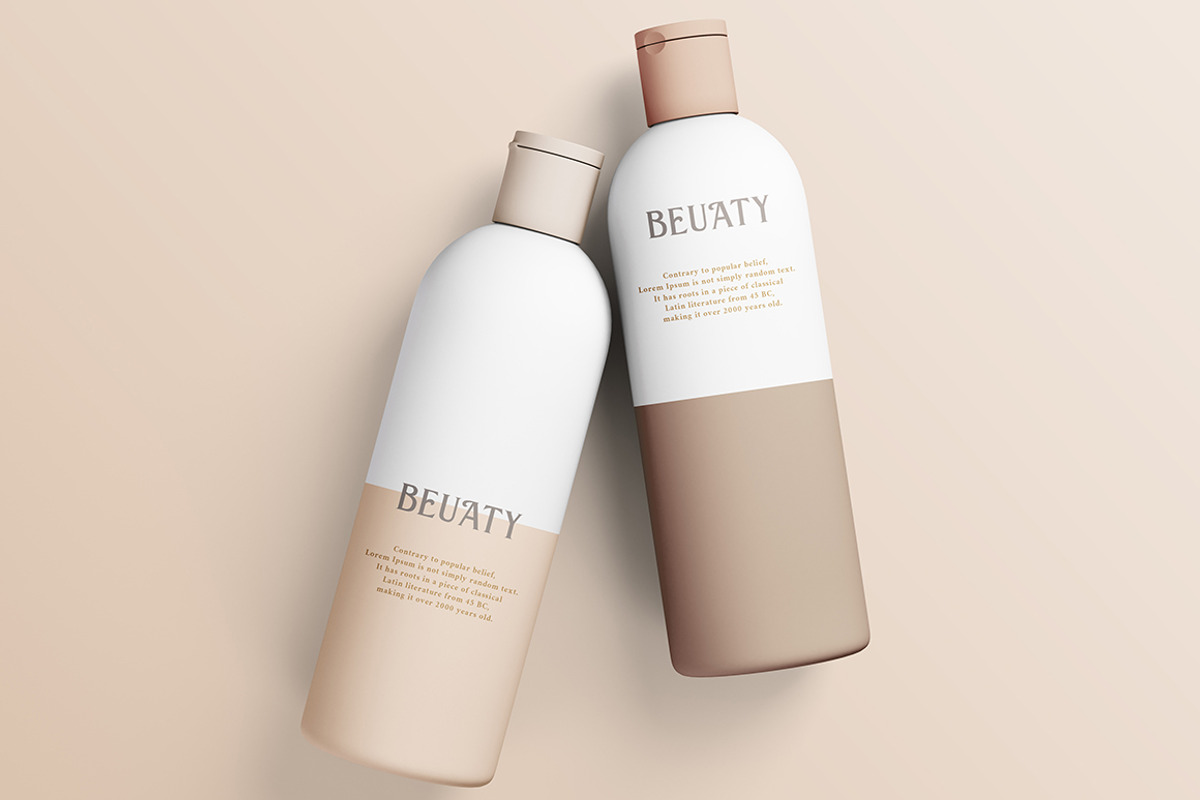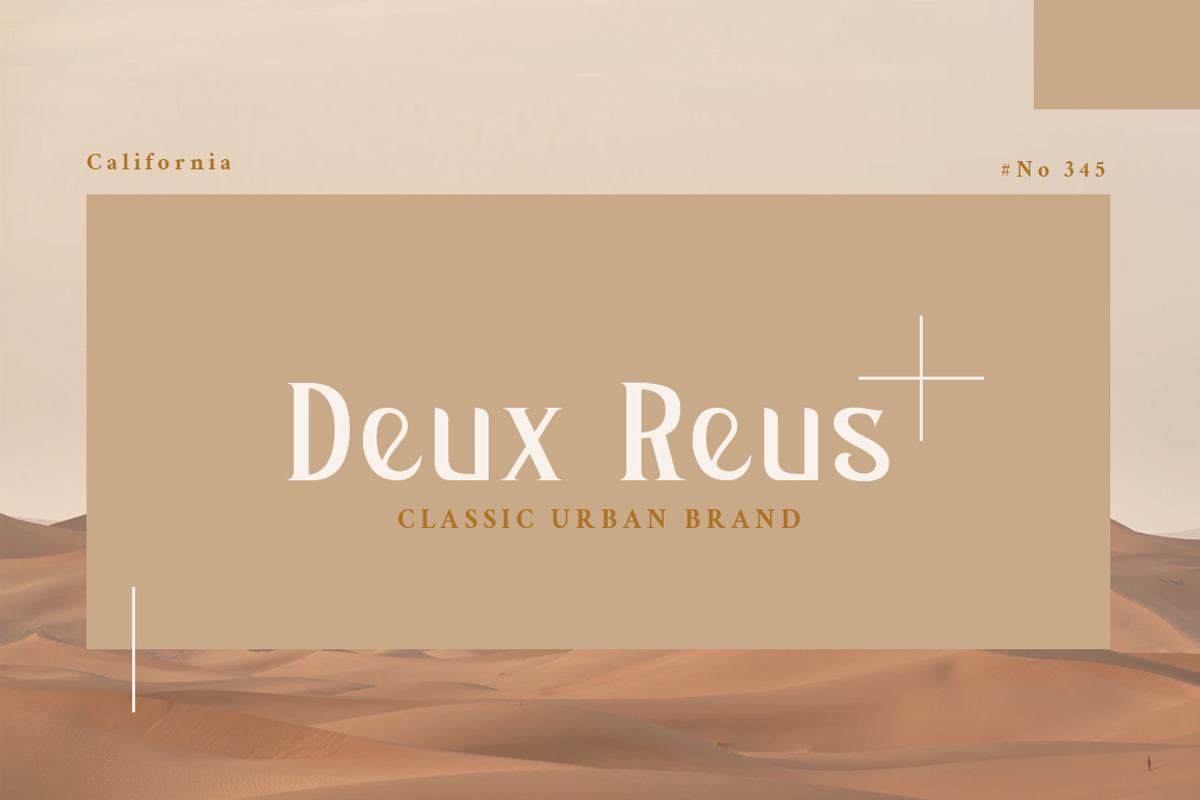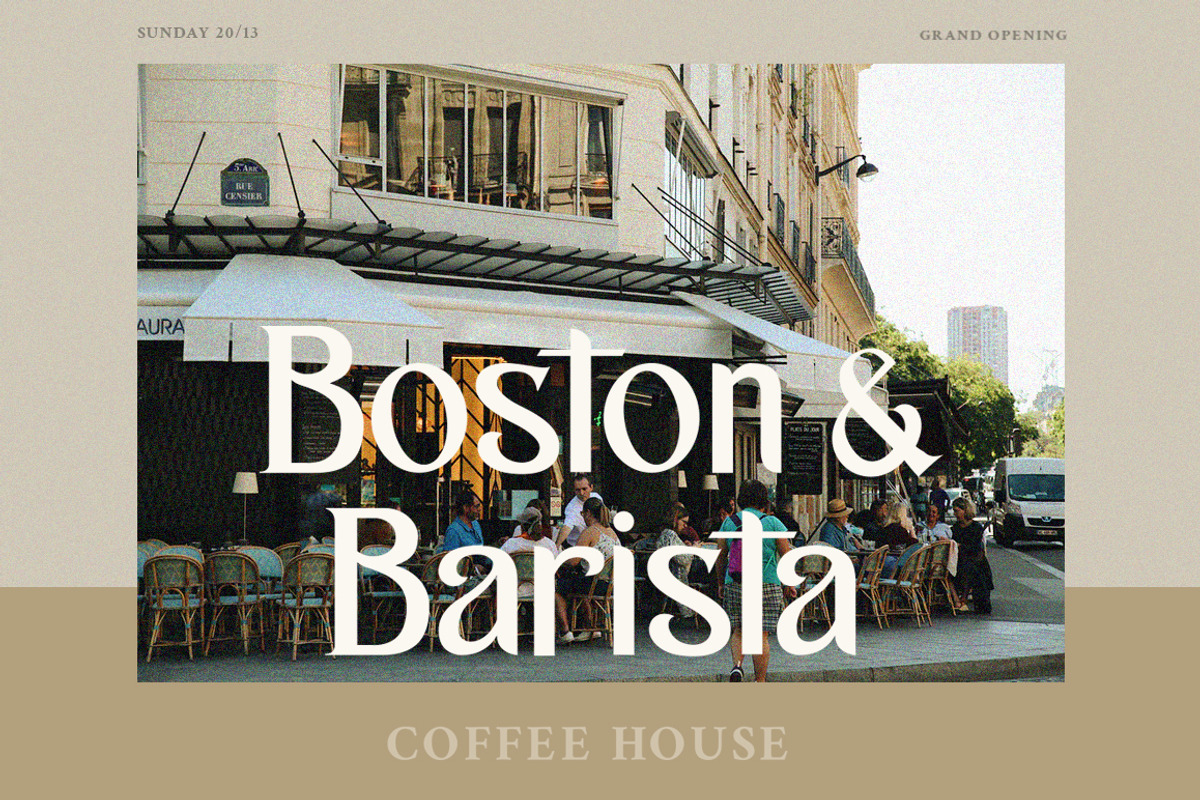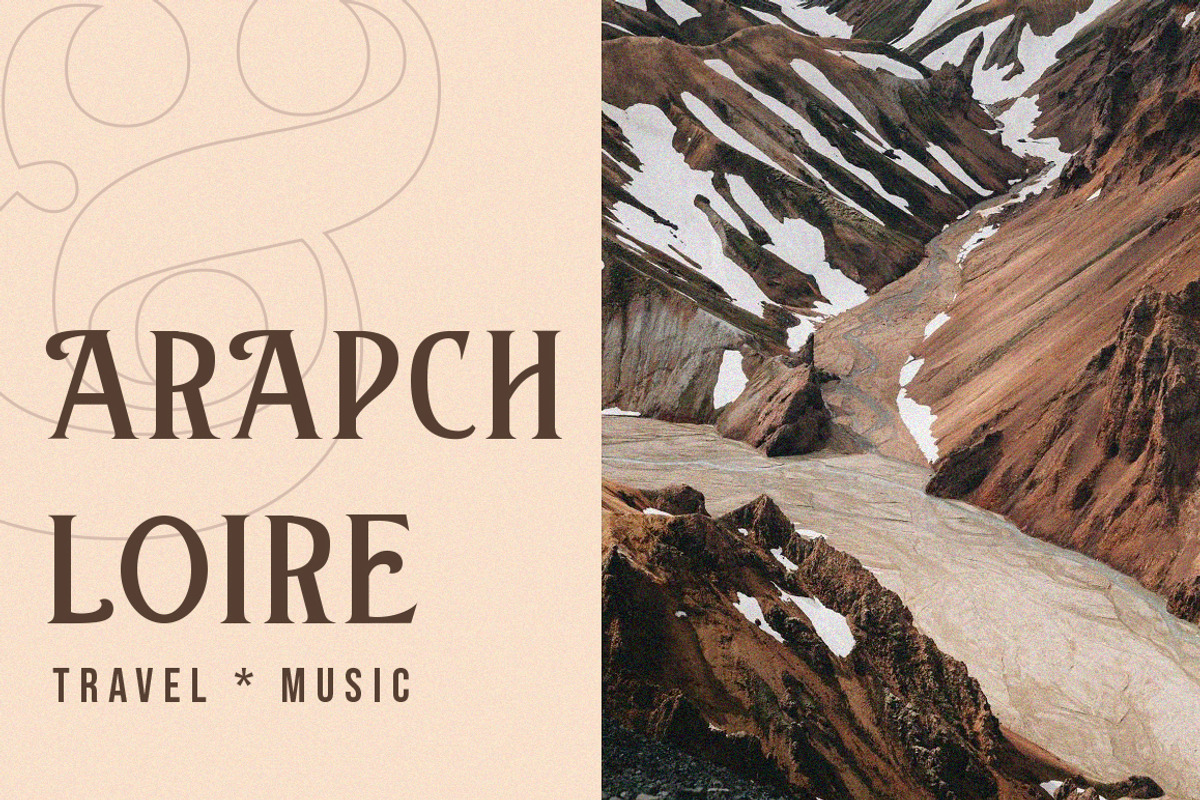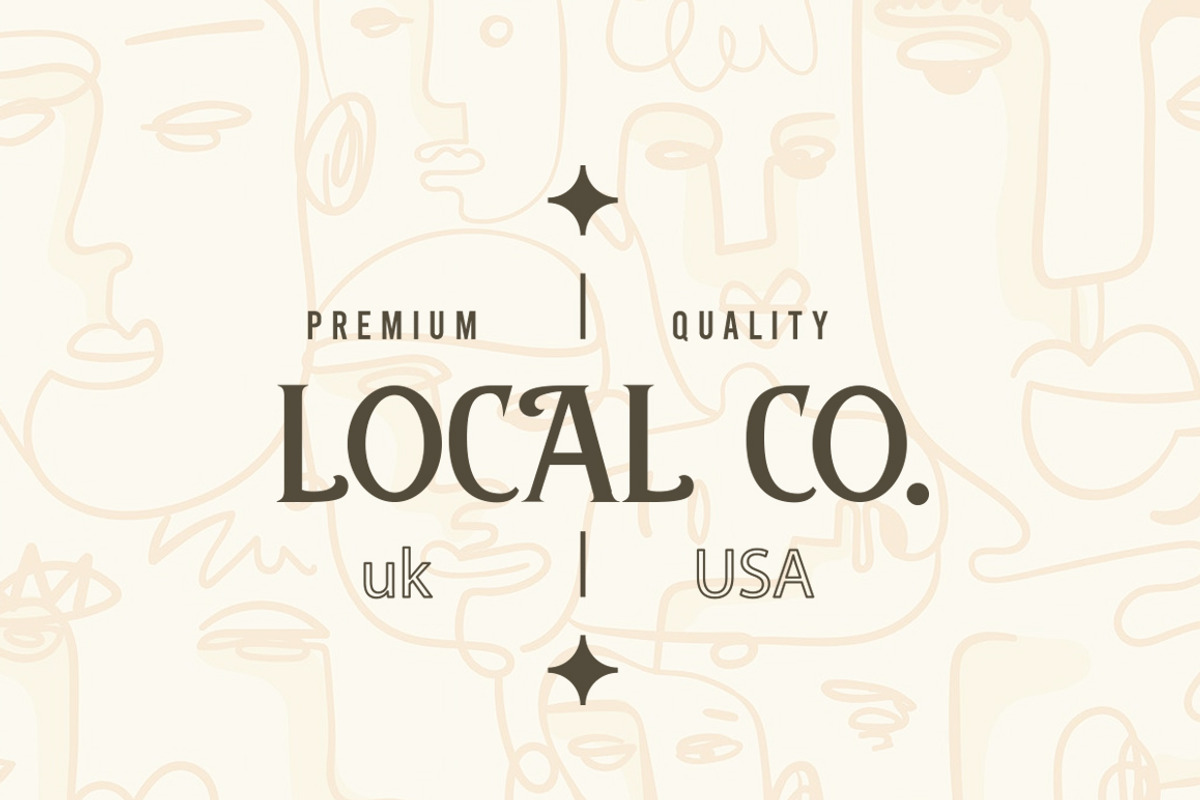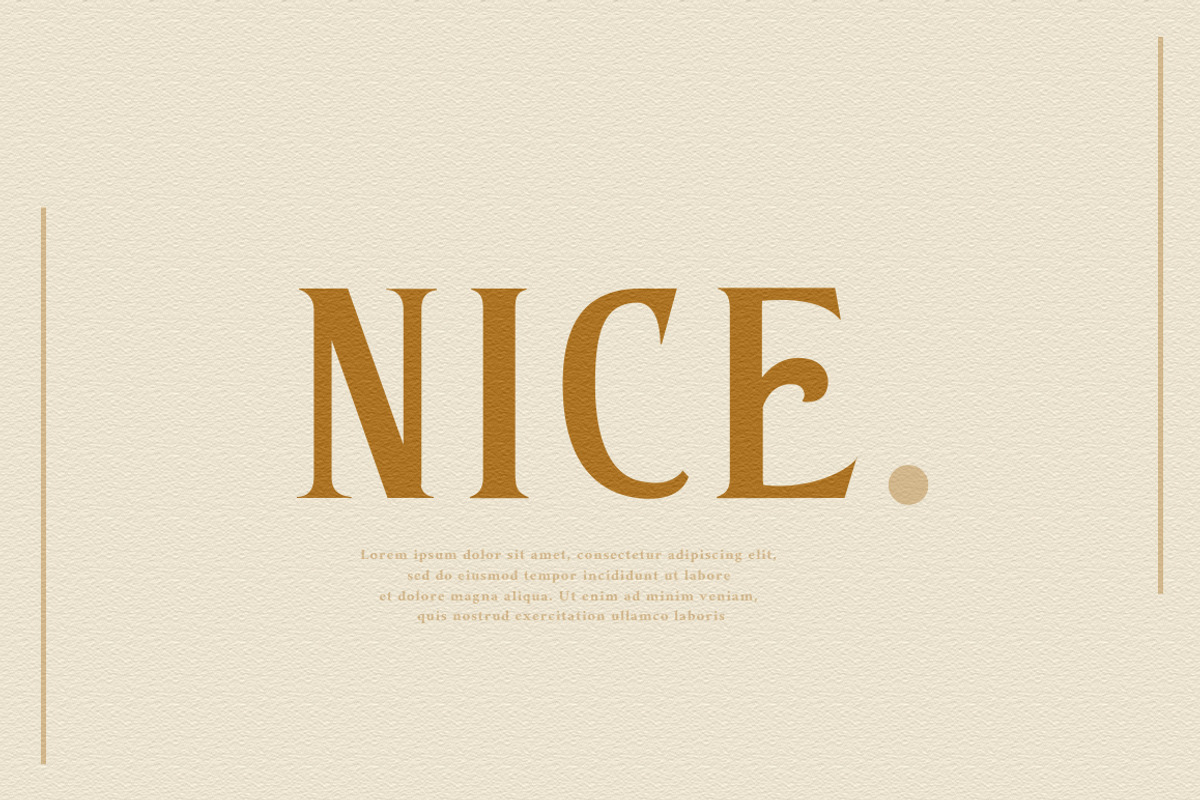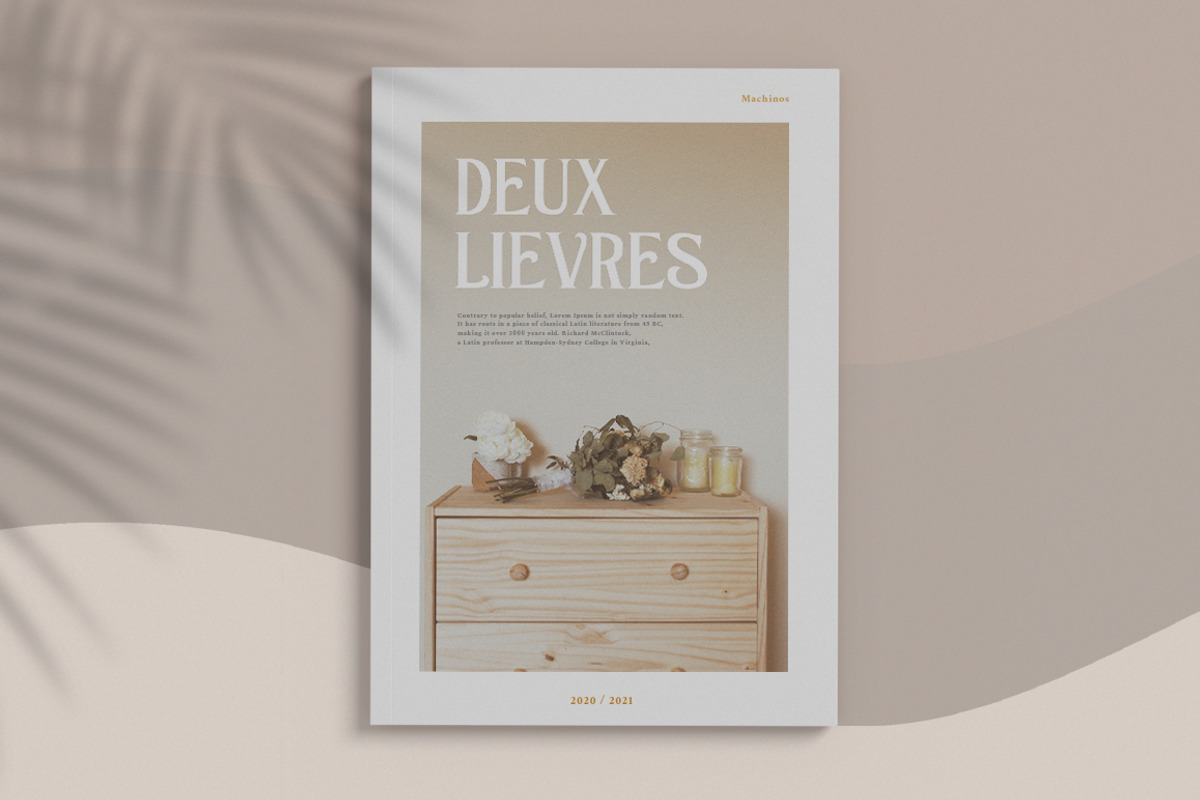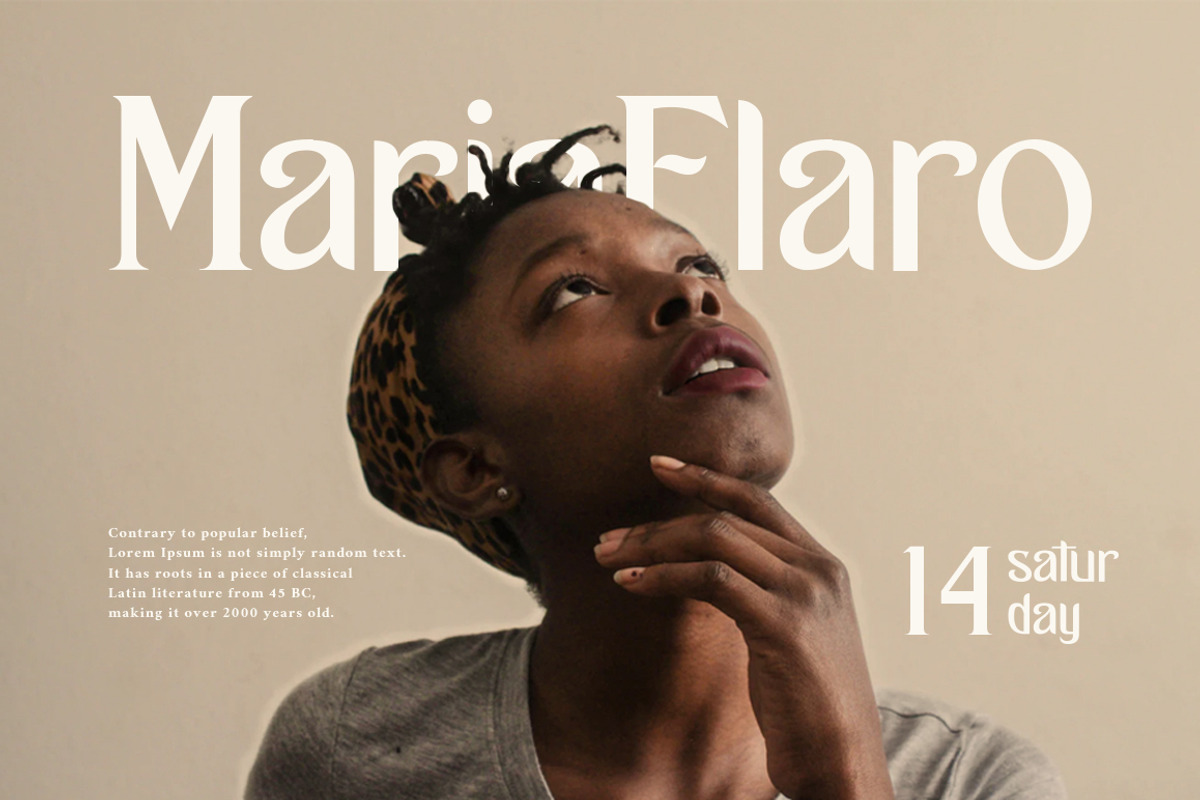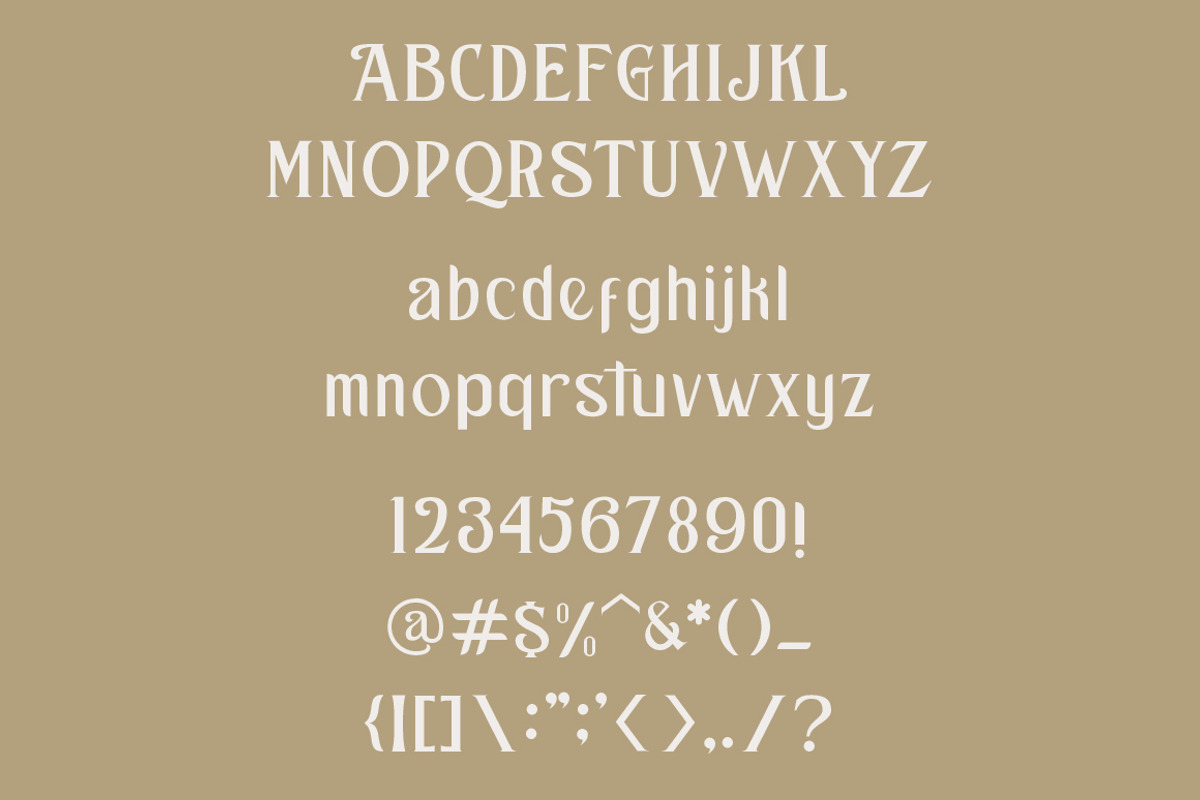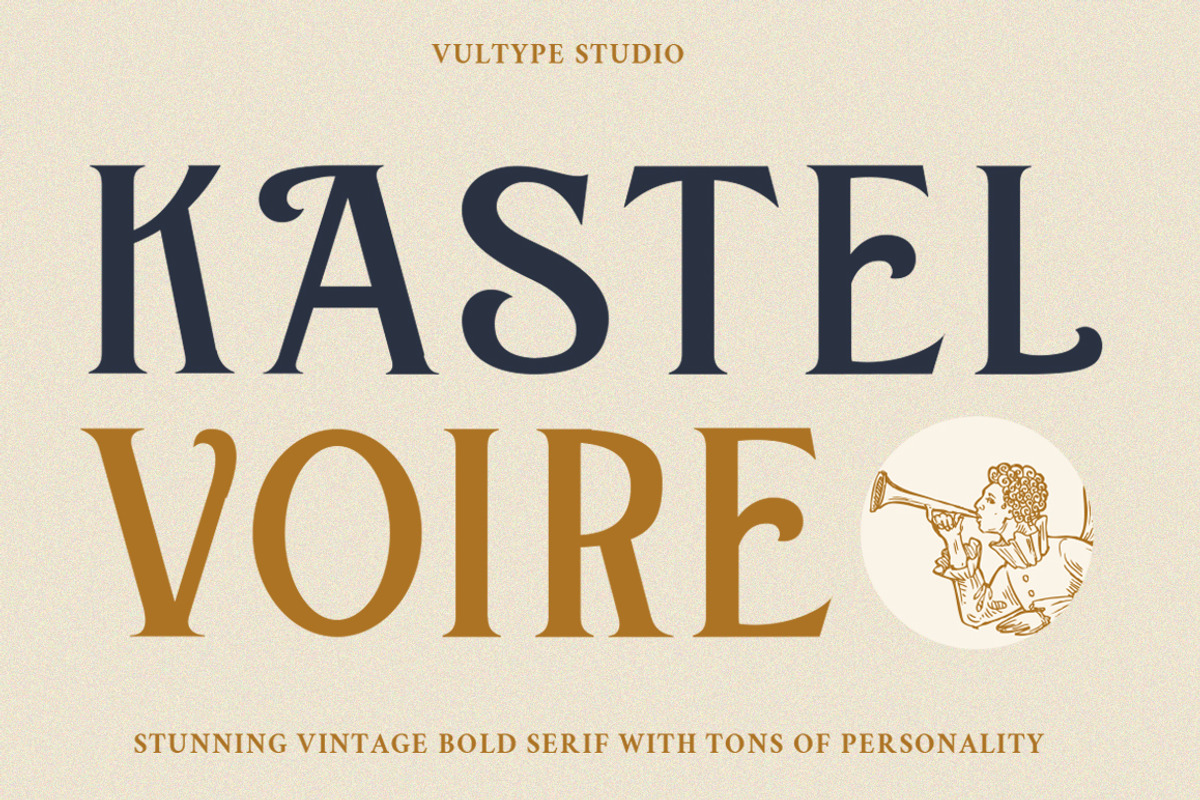
Kastel Voire - Classic Display Font
Kastel Voire is a classic display typeface. A minimal contrast look that has been synonymous with fashion for decades. This font is both modern and nostalgic and works great for logos, mastheads and pull quotes. It pairs beautifully with a minimal sans serif or light script font.
Kastel Voire Features :
- Lowercase and Uppercase
- Stylistic Alternates & Ligatures
- Multiple Languages Supported